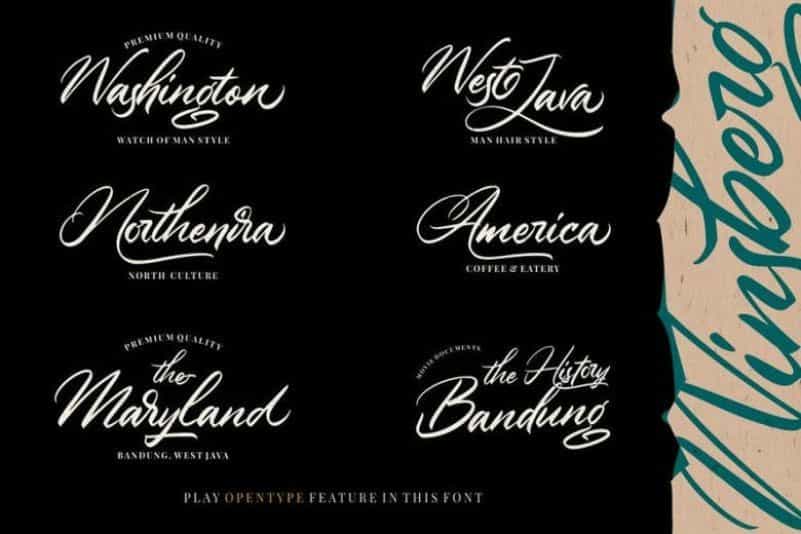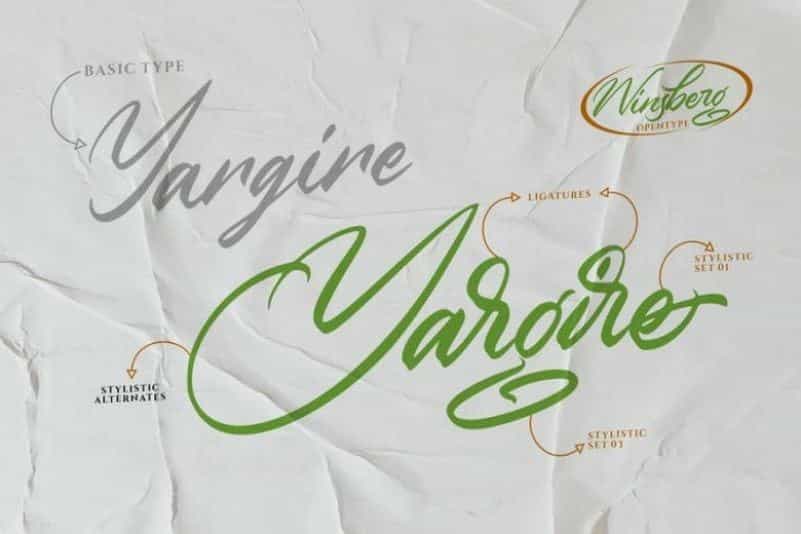
Introducing Winsberg Font! A modern script font. This Font can be used for any variety of purposes. It was designed and shared by Garisman Std, and now published on Fontget.ätDownload Now! Josephine Bold is a modern script typeface that every single letter contains beautiful characters alternates and feature ligatures!